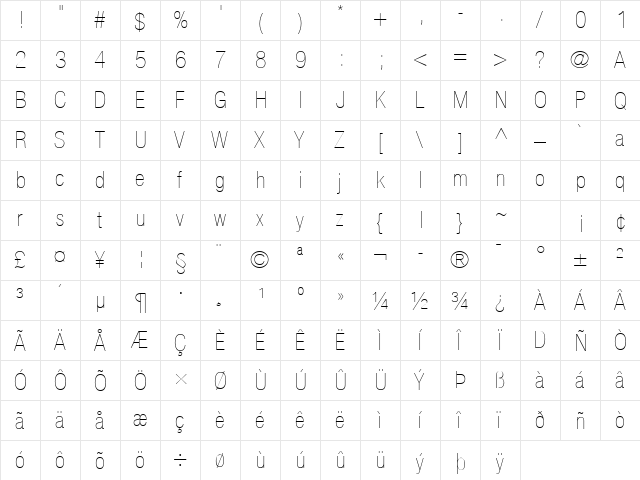
Helvetica Neue LT Com 27 Ultra Light Condensed
| Foundry | Linotype GmbH |
| Designer | Linotype Design Studio |
Design Context for Helvetica Neue LT Com Typeface
Helvetica Neue LT Com is a composed and adaptable typeface that performs quietly and consistently across a wide range of design contexts. Its slender proportions lend an understated elegance to any composition. The condensed width makes it efficient for tight spaces without sacrificing legibility.